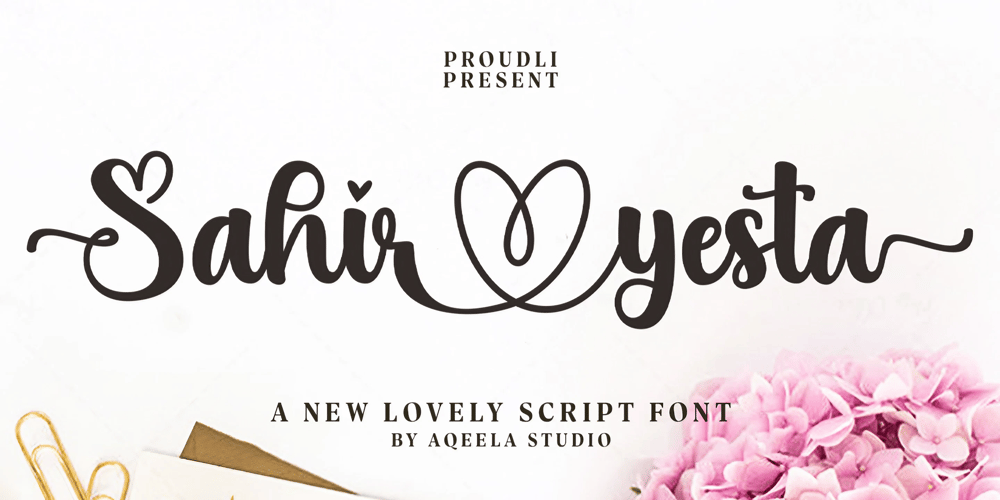
Sahir Yesta Font Family was designed by Muhammad Nasir and published by Aqeela Studio. Sahir Yesta contains 1 styles and family package options. Sahir Yesta is a beautiful, carefully crafted handwritten font with a touch of elegance, offering a unique blend of sophistication and charm. Perfect for adding a touch of workmanship to your designs, this font exudes a graceful flair that enhances any project with its artistic and refined style.